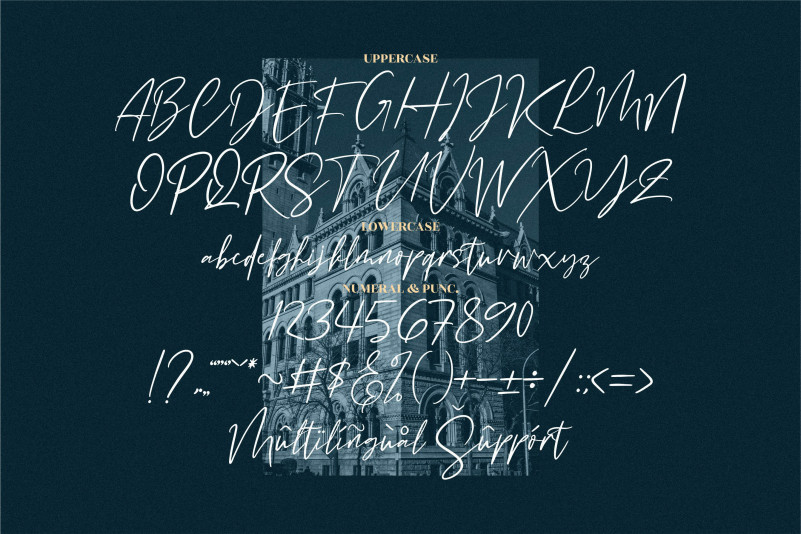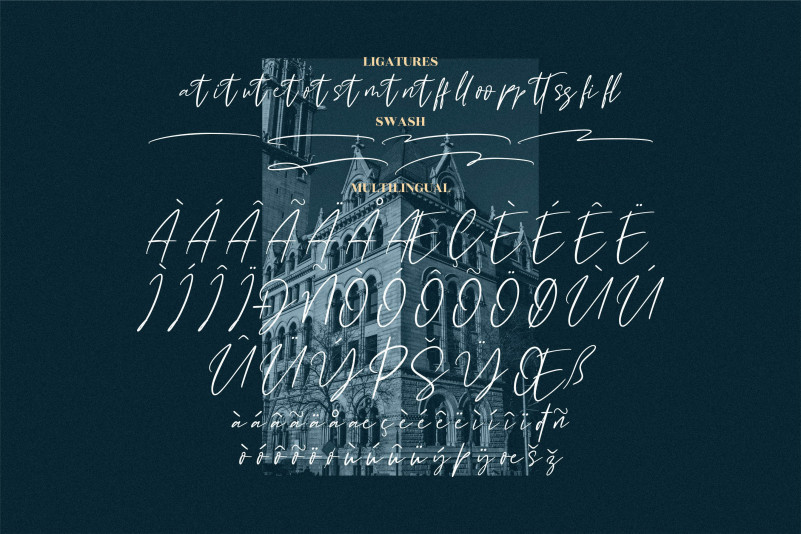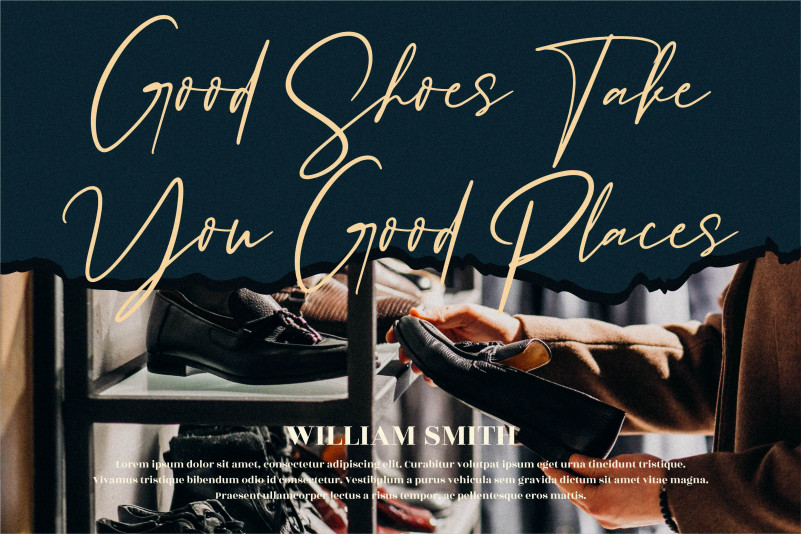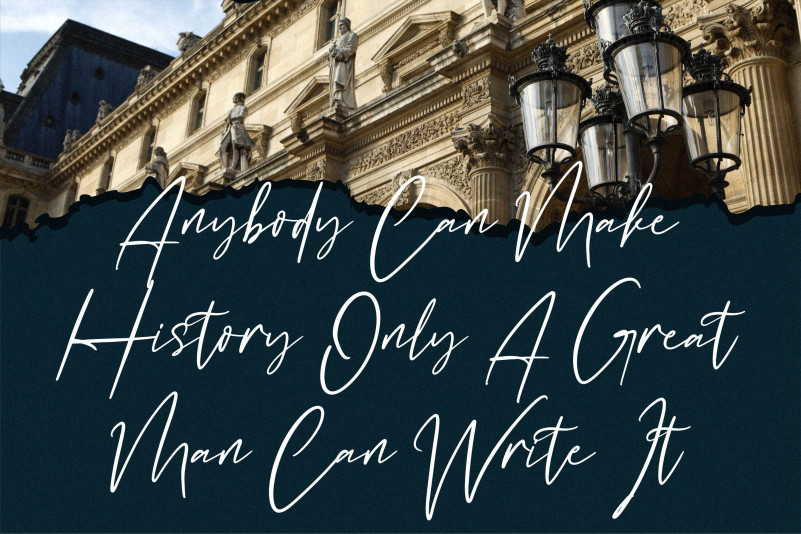
Buffalo City Font
Buffalo City Script Font
This is a thin lettered, fashionable script font. Add this asymmetrical font to any creation that requires a lovely touch.